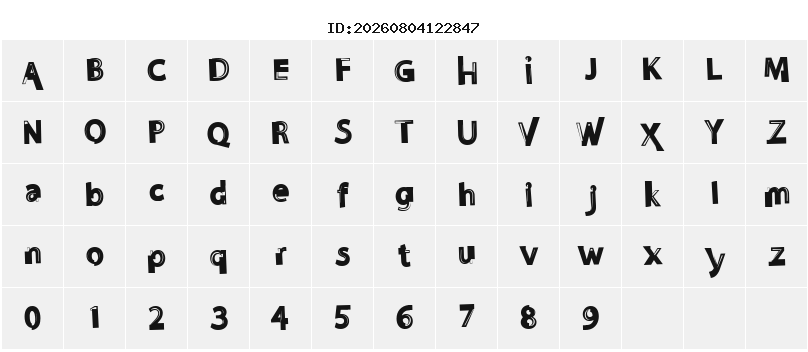
• Font Name: NoSense
• Font Style: NoSense
• Full Font Name: NoSense
• Designer: ©THOMAS CANALE
• Manufacturer: THOMAS CANALE
• Description: Setting type has been an occupation and a passion of mine over the last 30 years. After completing some schooling at Cooper School of Art in Downtown Cleveland I accepted a position at Peto's Type House. Back then, the Cleveland Press still set type with 'Hot' lead. I know, this dates me, but the facts are the facts. PhotoType was in it's infancy with the Linotronic 5700 being top-of-the-line technology in Photo type setting. My job at Peto's was more modest, among other things, I was hired to set headline type on what was called a 'Typositor'. It was still photo type setting but for headlines only. Letters had to be set (exposed), one letter at a time. A single headline of lets sayÉ15 words or so could take an hour or two to completely finish for paste-up, that's right, I said paste-up. That should really date me!! By doing this day in and day out (for hours on end) I gained a "close-up' appreciation for letterforms and spacing. Ernie Peto would also quiz me on identifying type by name. It was an interesting 18 months to say the least. There have been lasting effects on my appreciation of letterforms thanks to this experience. Over the years, there have been spin offs of wood type, Times Roman, Helvetica, etc. Seems to me like we are just going over the same ground over again. What interests me is not the 'sameness' in the letterforms or their 'invisibility' in the graphics world. Some fonts are used to be 'invisible'. What I mean by this is that they are merely a communication tool to deliver the authors' / writers' message. the artistry in the forms lies in their ability to stay invisible and be easy to read. But their 'uniqueness' and how that difference translates to the printed page. There are many ways of looking at letterforms. We can look at the beauty of the individual letters themselves. Commenting on the curves of a upper case 'A' or a lower case letterform. Or we can look at them as a 'unit' and how that translates within a block of written text. It is this uniqueness that I am looking for in the fonts I design. I do look at each individual letterform and revel in the beauty of the forms and lines. But I also want to create a Font that when written out will display some unusual and unexpected characteristics when in a large block of text. Look for different line weights and forms in my font glyphs. The idea here is to allow the printed page to display uniqueness in contrast.
About NoSense.ttf
NoSense.ttf is a modern, elegant sans-serif font designed for ultimate readability and visual harmony. Perfect for branding, headlines, web design, and print materials.